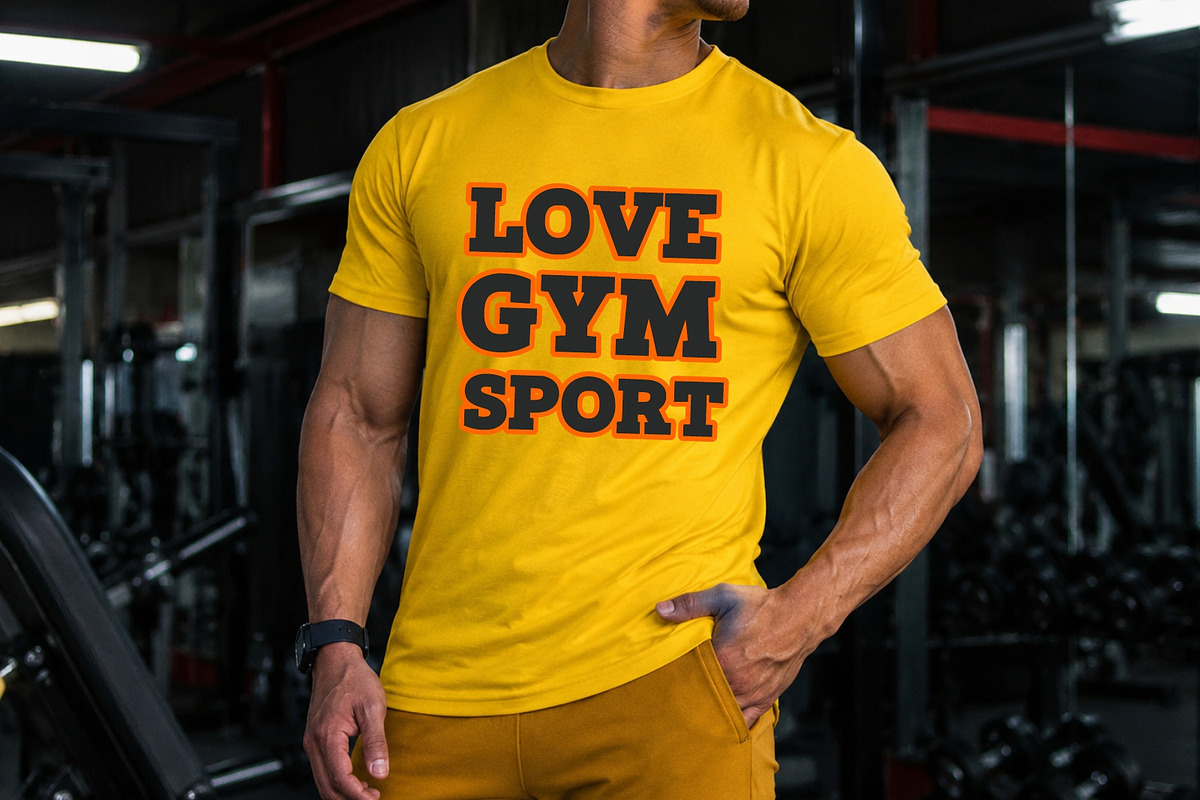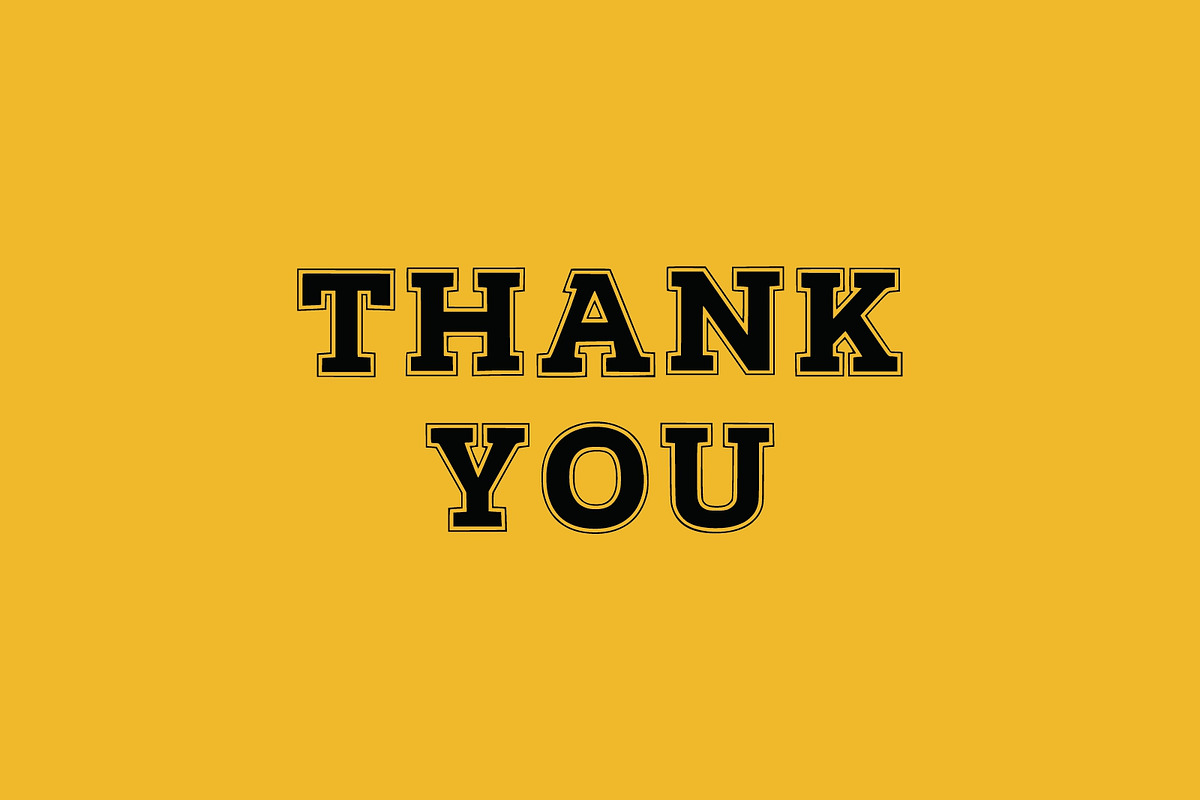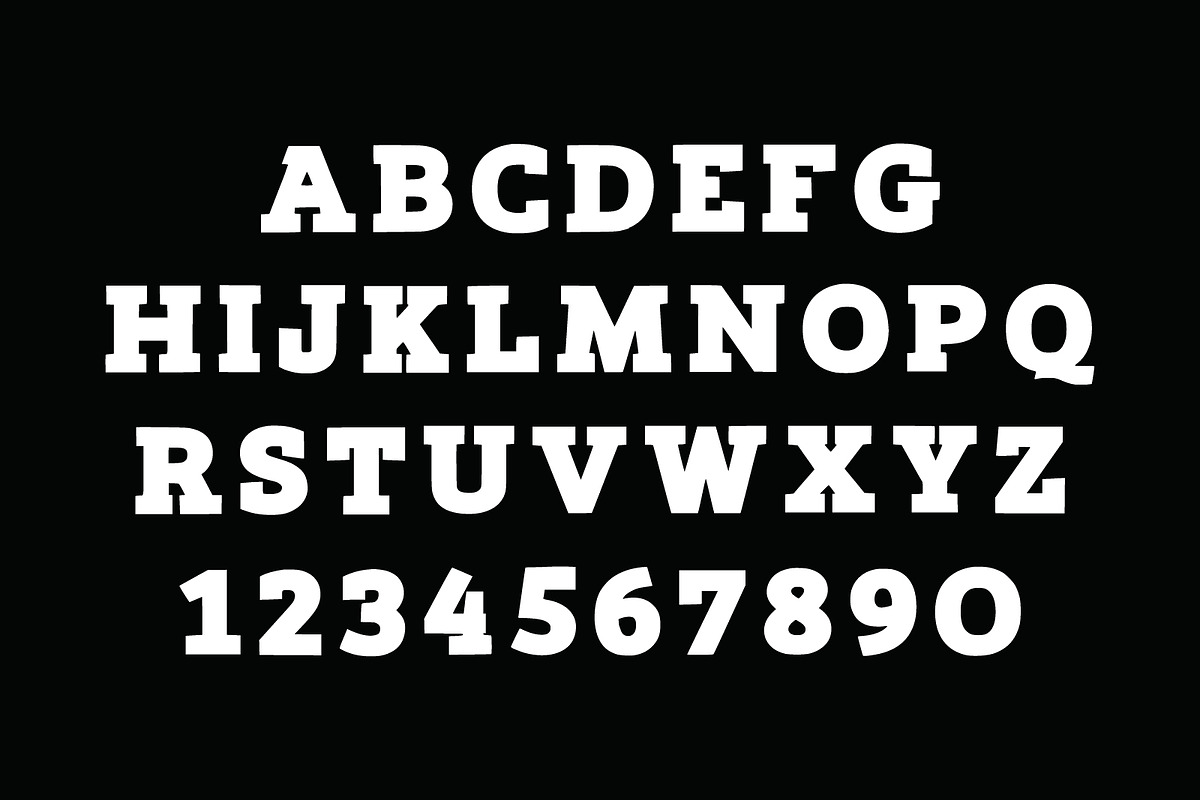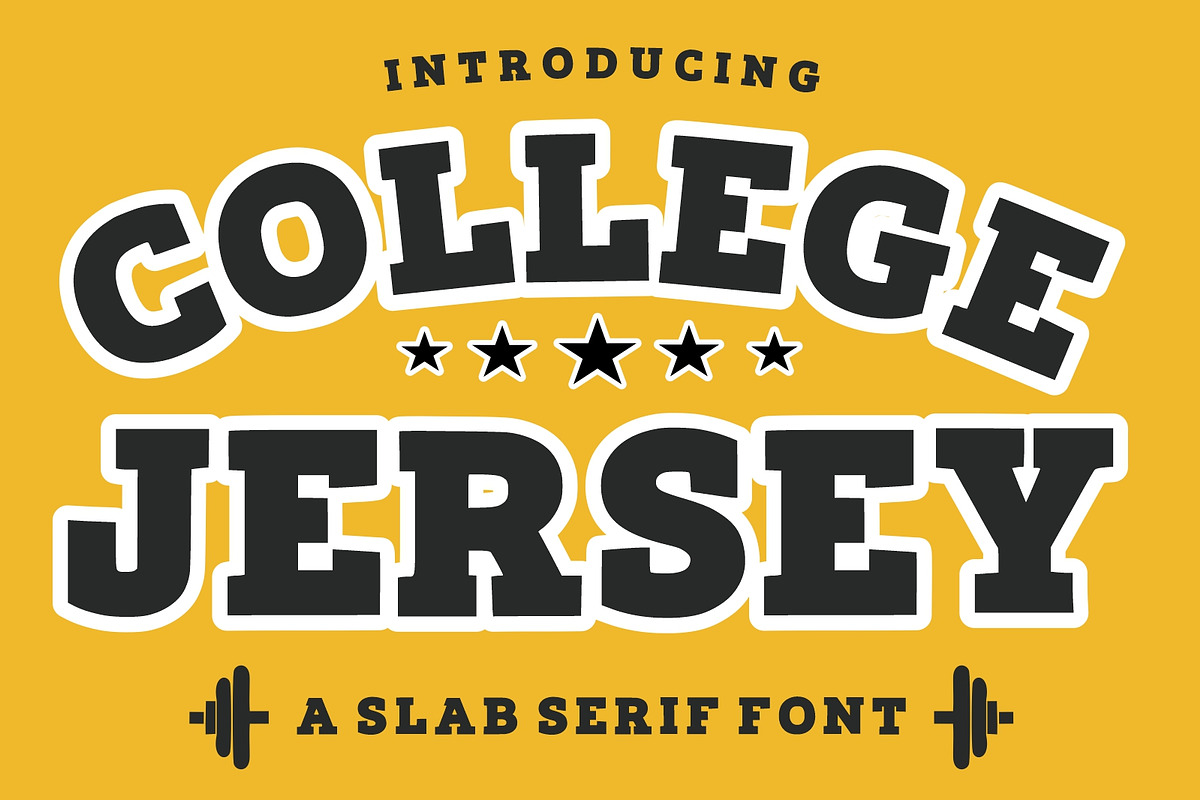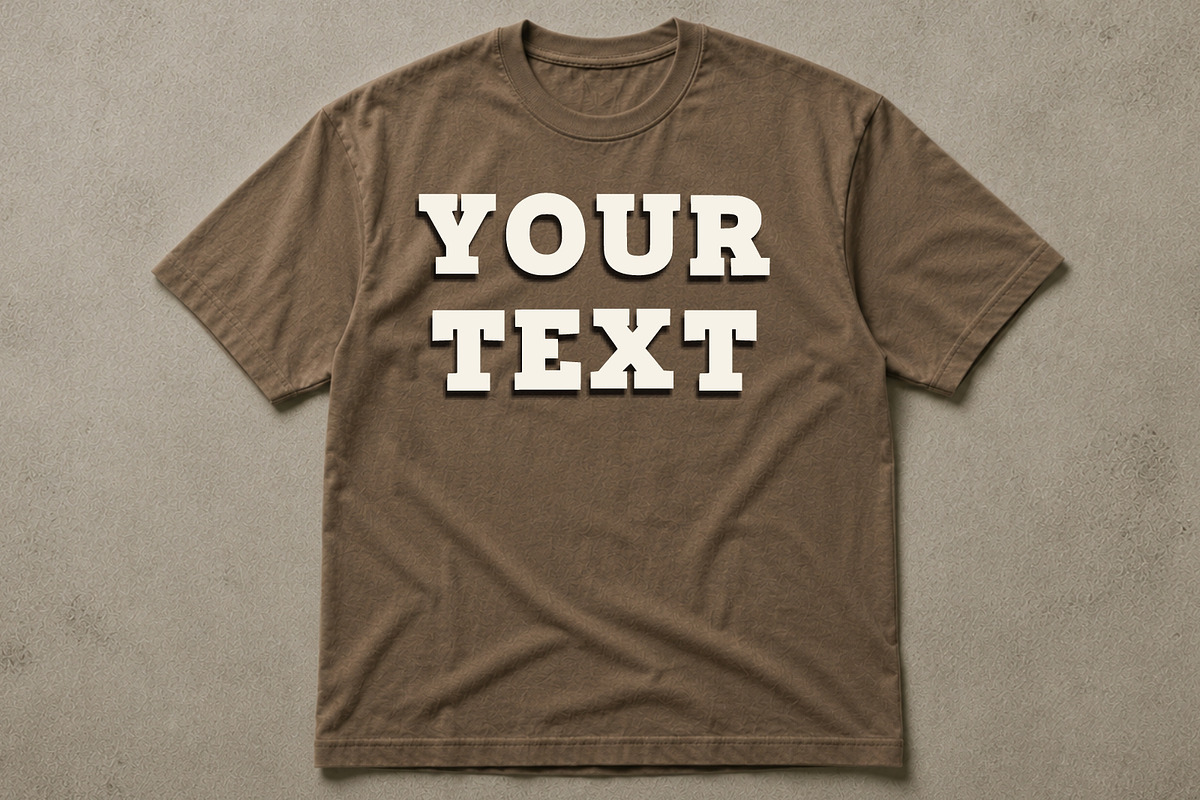
College Jersey
College Jersey is a bold slab serif font inspired by classic varsity and collegiate sports typography. Featuring thick retro letterforms with a strong athletic character, this font is perfect for sports branding, baseball logos, university merchandise, t-shirt designs, team jerseys, posters, headlines, and vintage-inspired projects. Its energetic and playful varsity style delivers an authentic American college sports atmosphere for both modern and retro creative works.